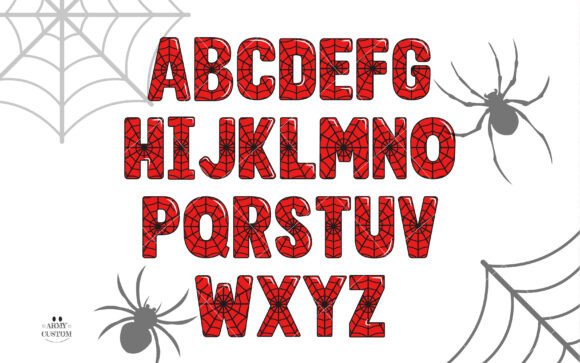
Spiderweb Army Font
Experience the enchantment of the one-of-a-kind Spiderweb Doodle Font Color, expertly crafted to infuse your projects with an awe-inspiring dash of mystique. Its unique charm and enchanting aesthetic will undoubtedly transform your creations, elevating them to an extraordinary level of artistry.